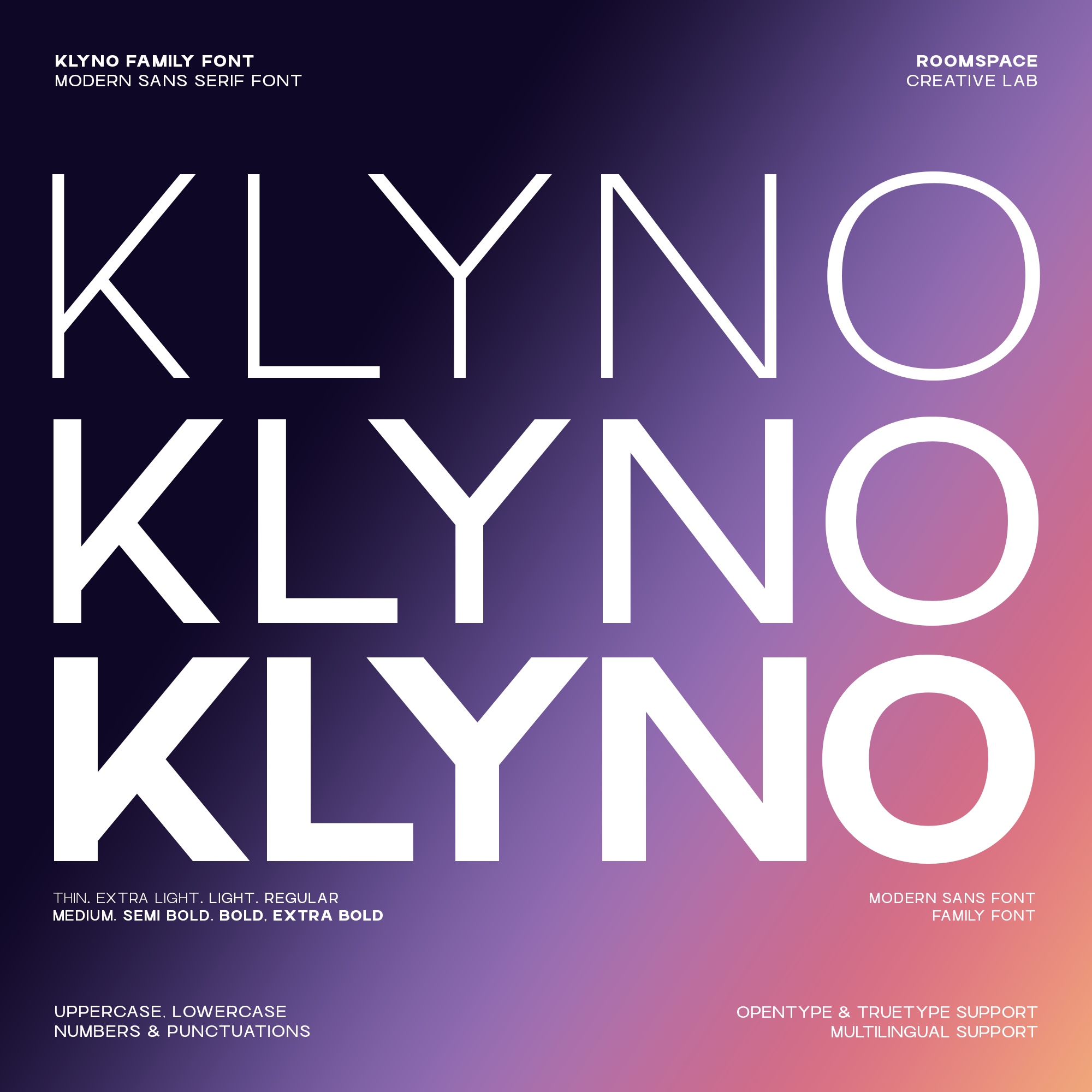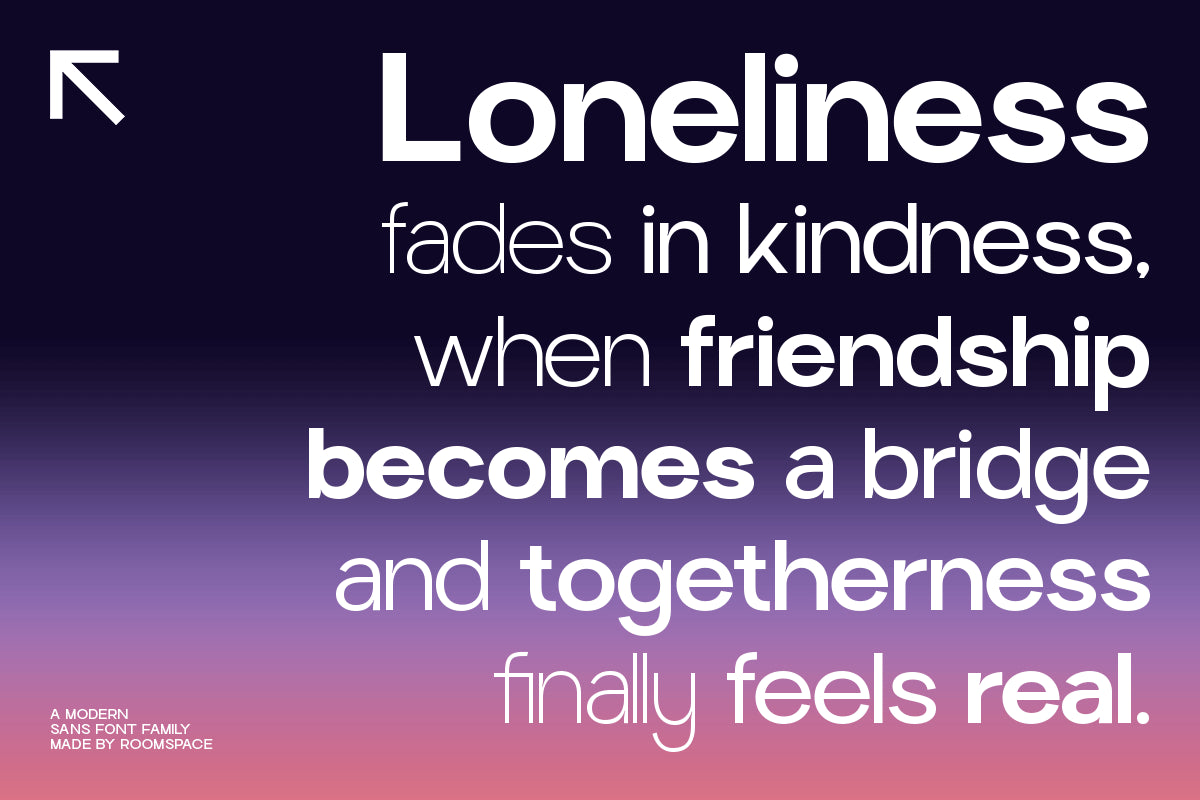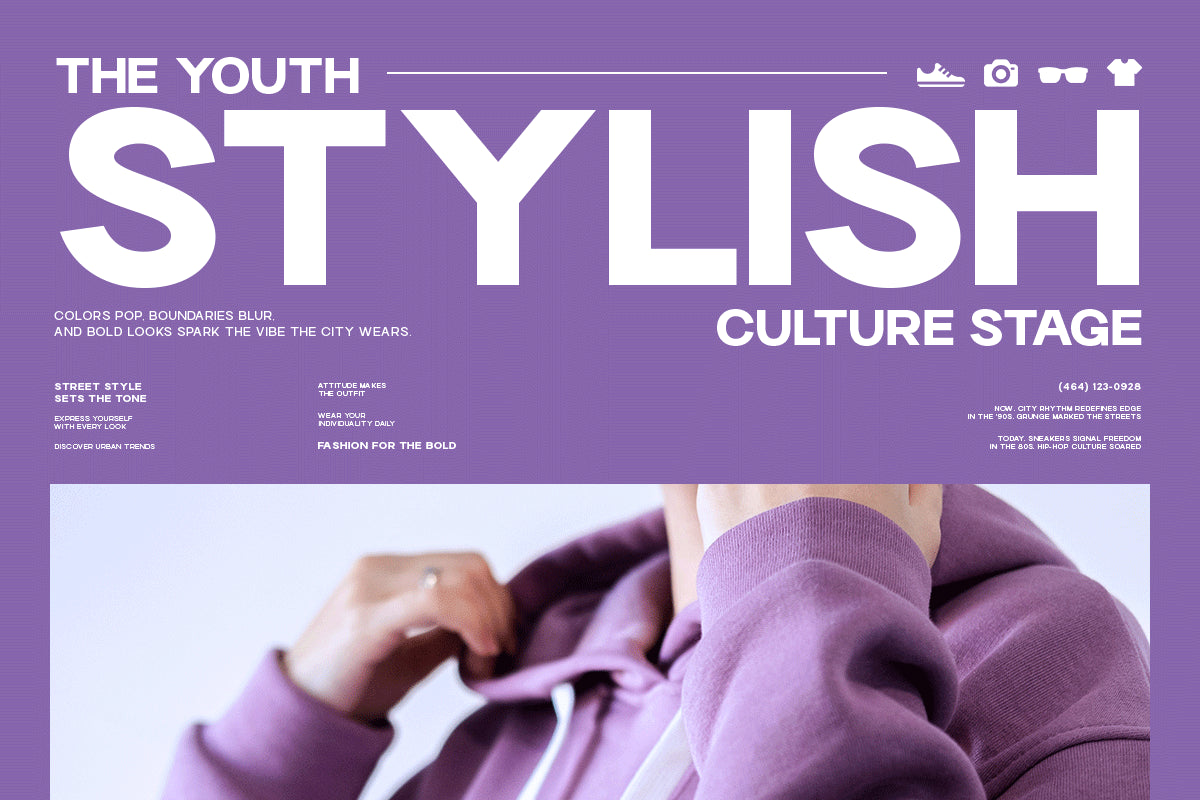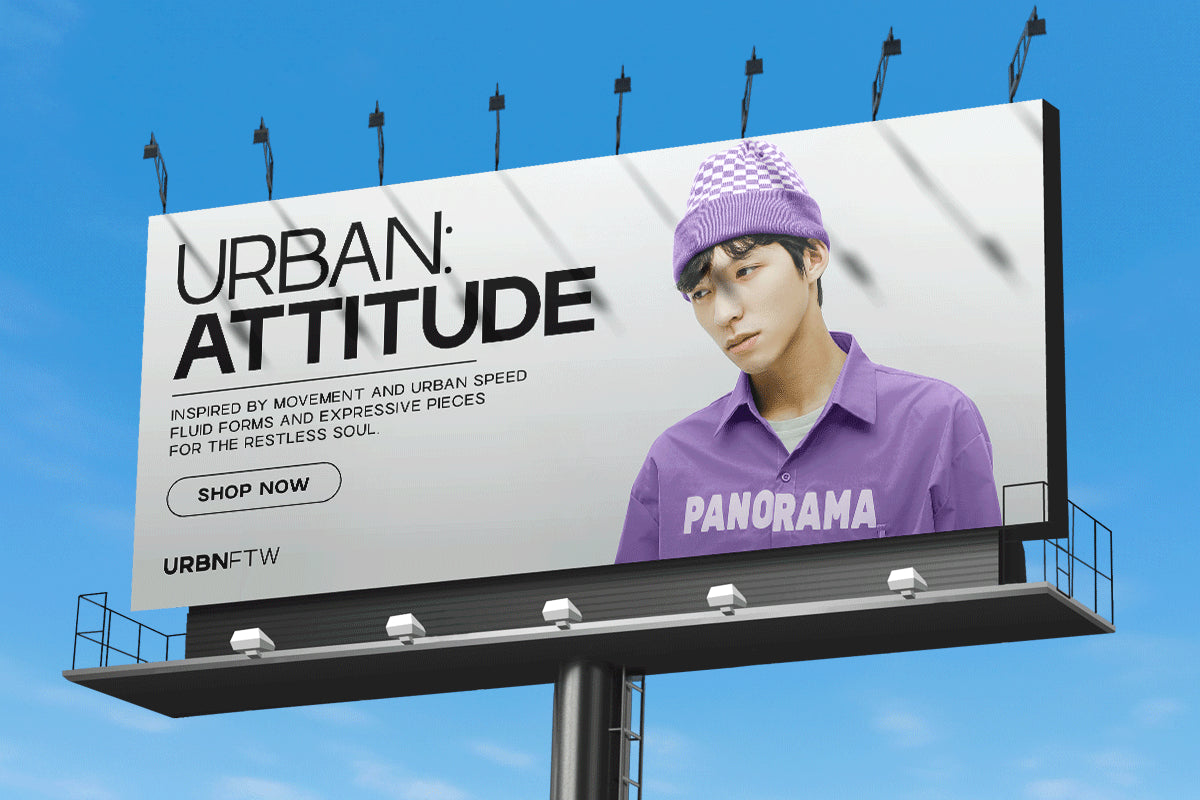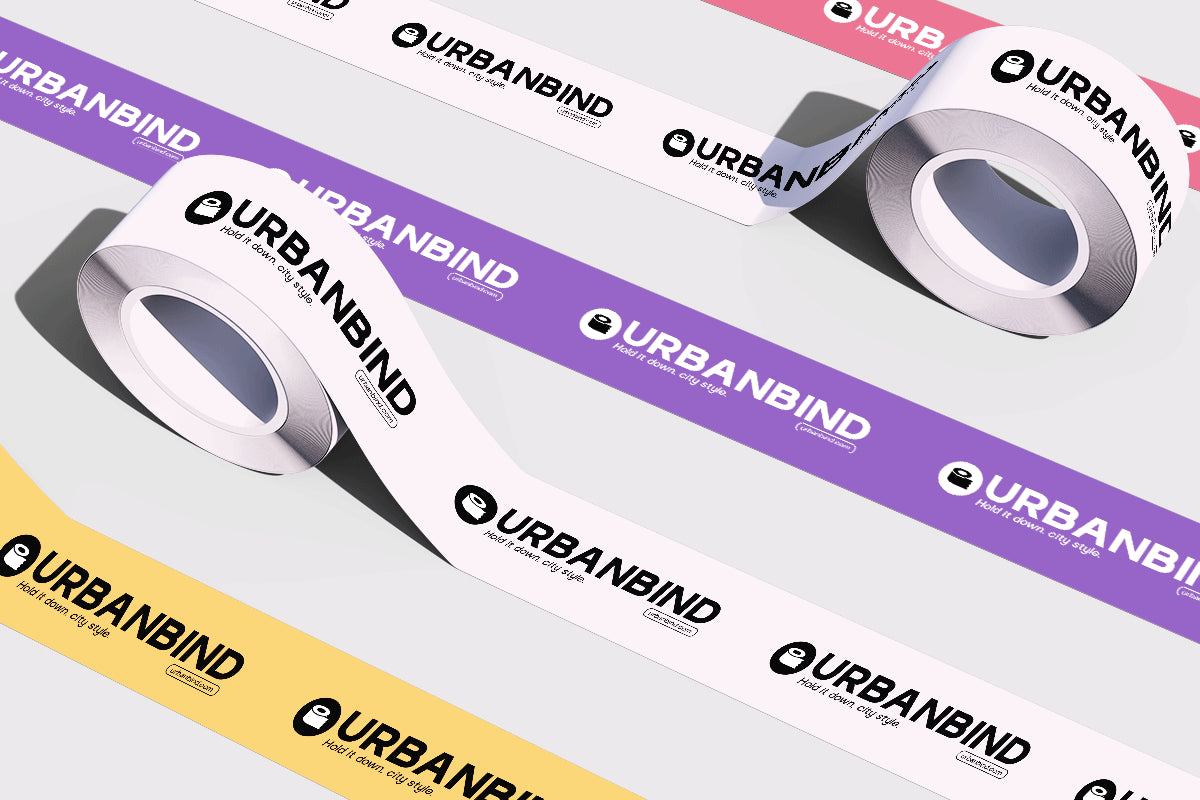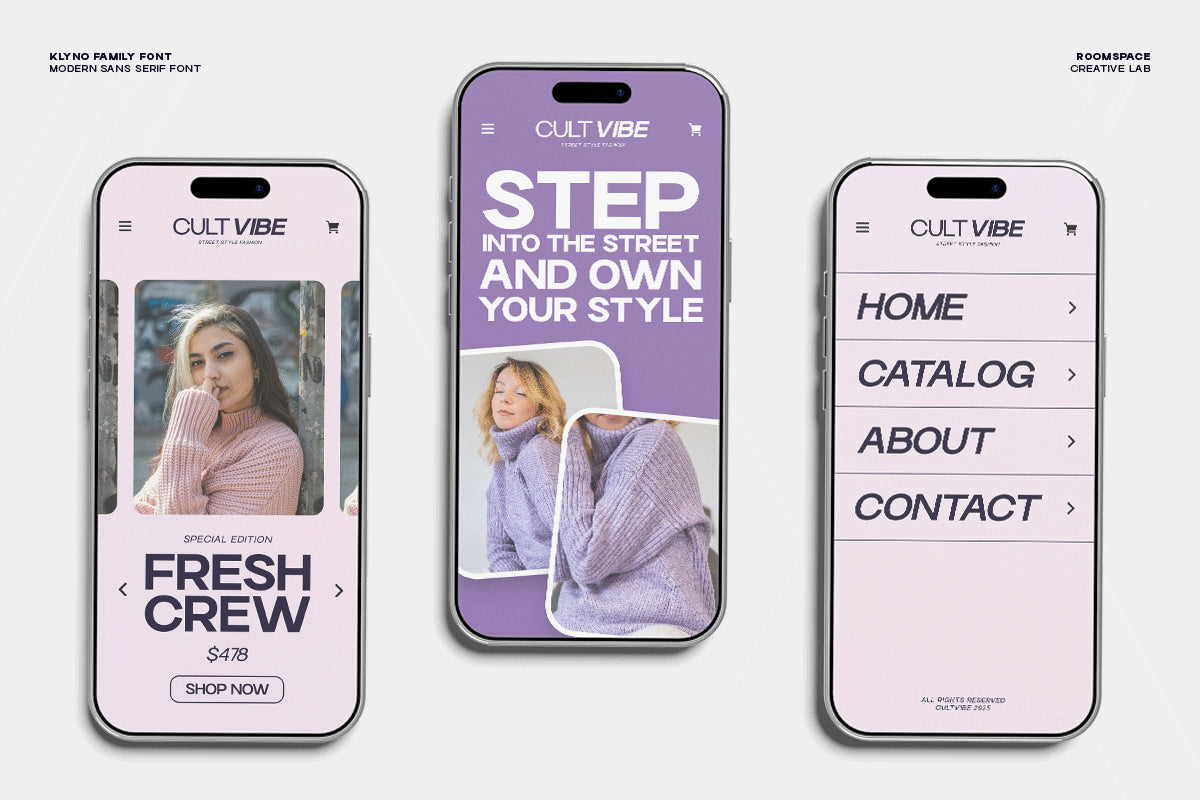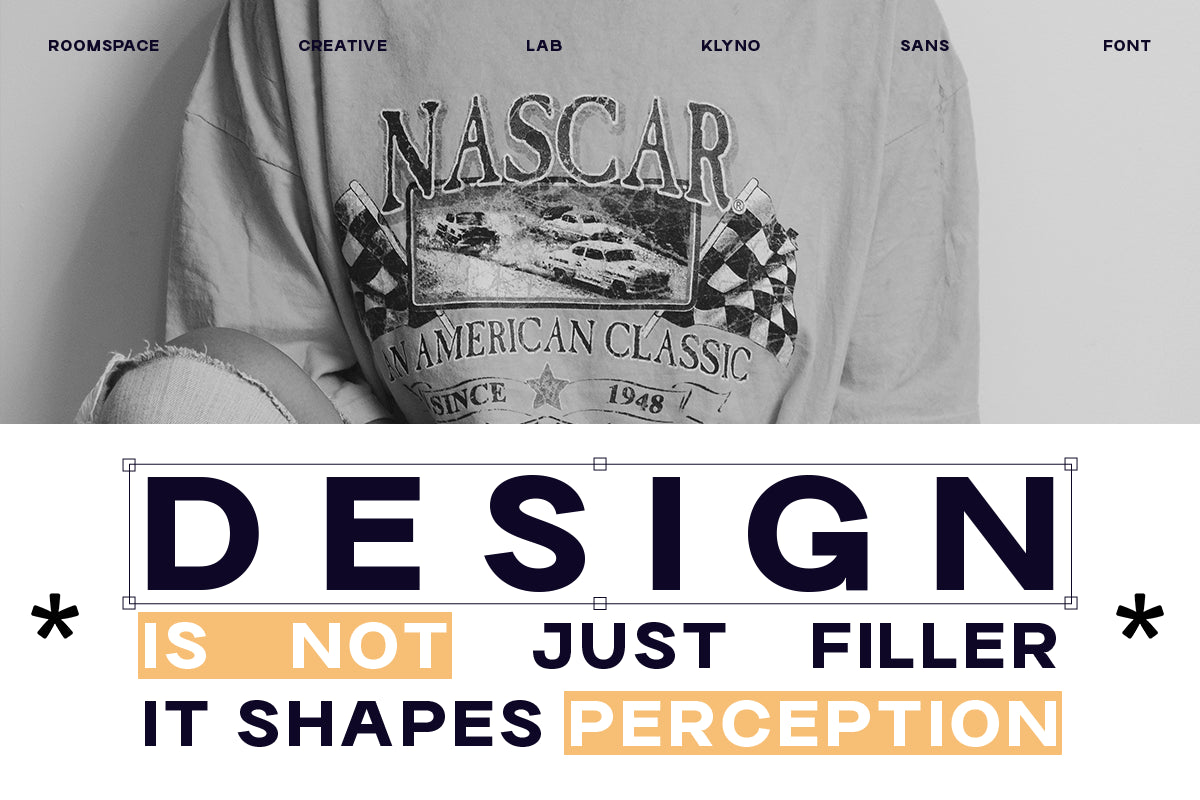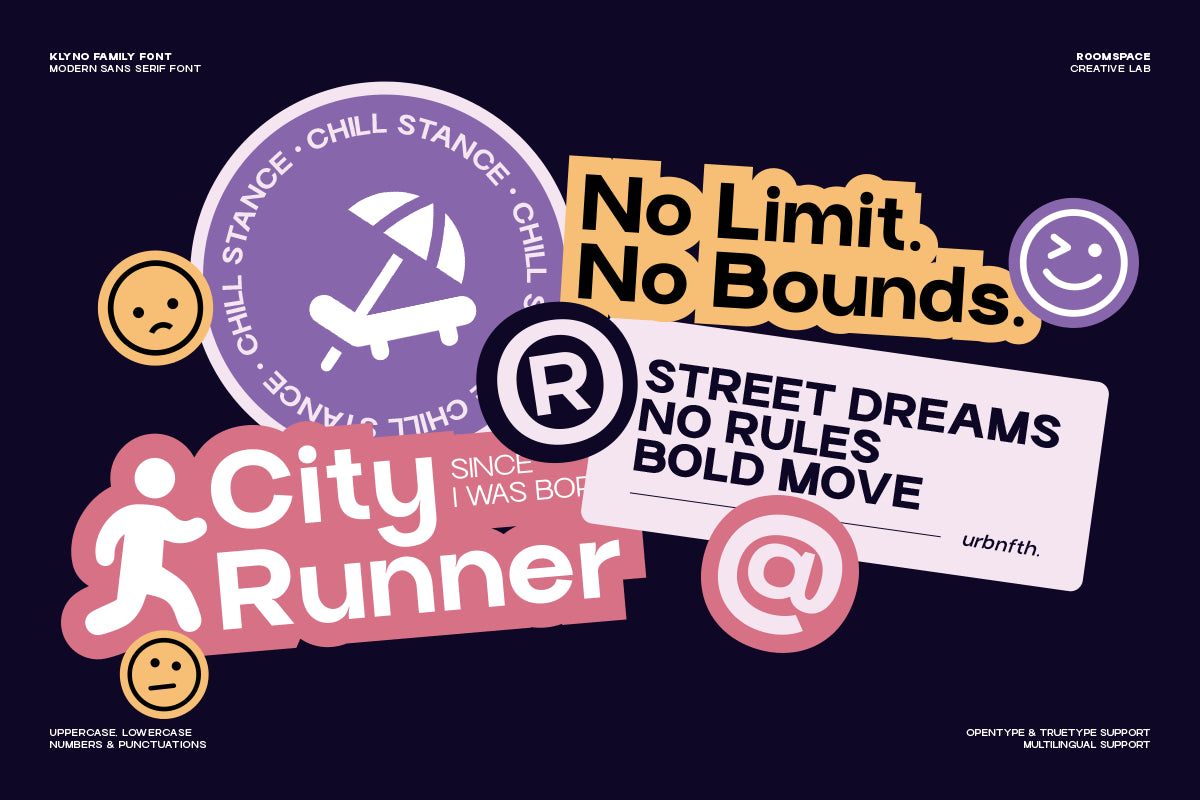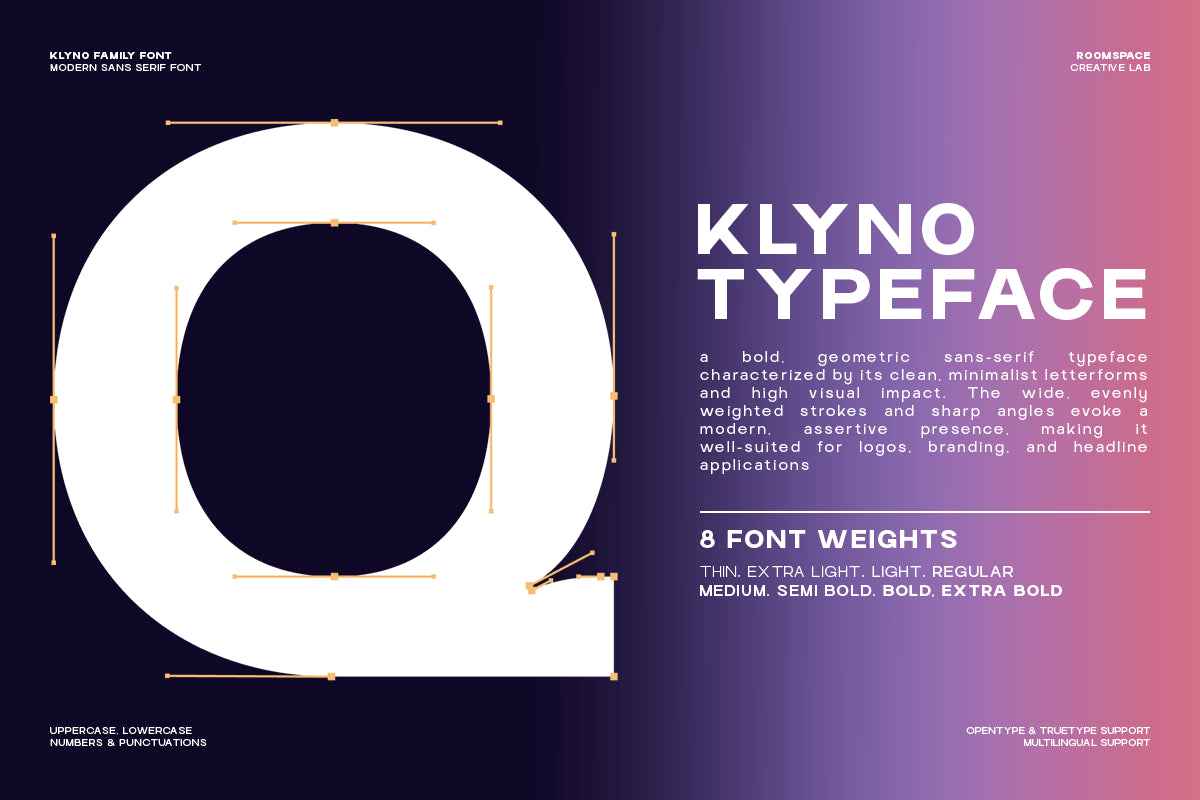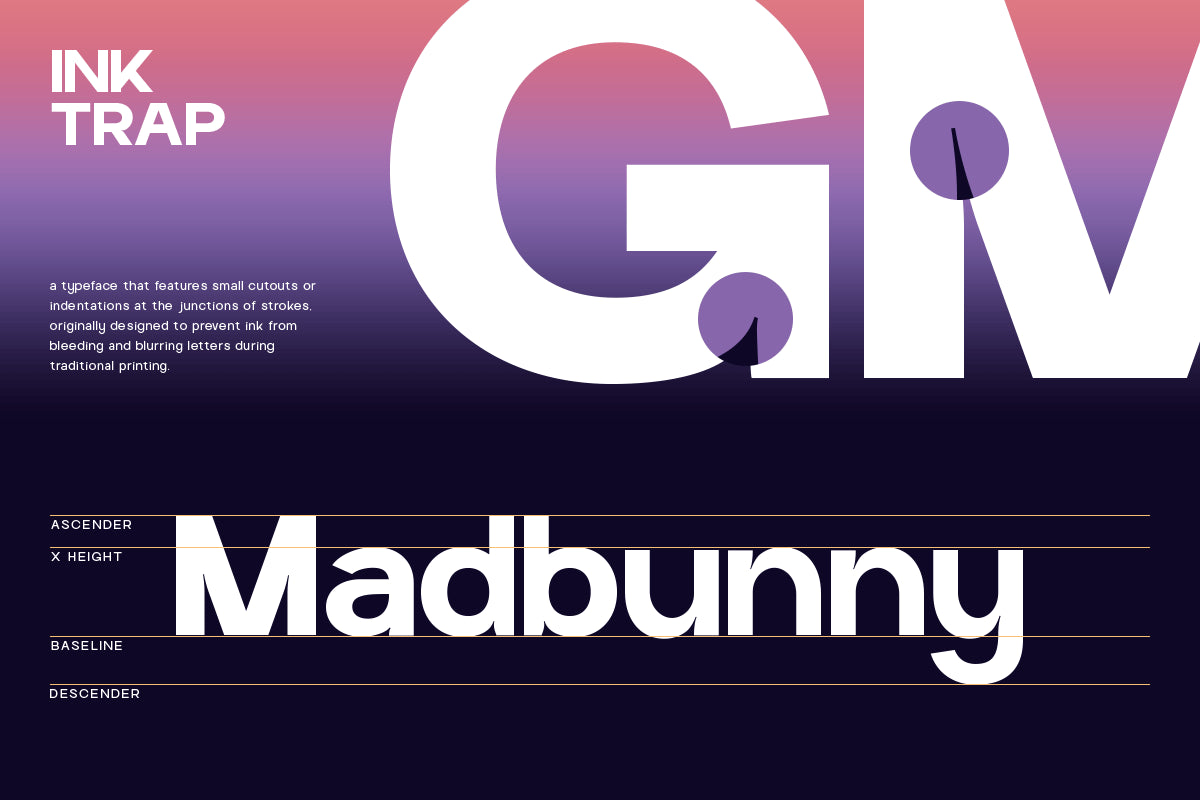
Klyno – A Modern Geometric Font Sans
Klyno is a bold, structured, and unmistakably modern sans-serif typeface designed for designers who value clarity with attitude. Built on strong geometric foundations, Klyno delivers a sharp typographic presence that feels confident, controlled, and future-forward. With its clean construction and precise proportions, Klyno balances visual strength and readability with ease. Every letterform is carefully engineered to feel intentional and refined, creating a rhythm that works beautifully in both large display settings and structured layouts. There is no unnecessary decoration only clarity, precision, and impact. Klyno’s visual language sits at the intersection of editorial and technology. It feels equally at home in modern magazines, digital platforms, branding systems, and forward-thinking interfaces. Whether used for headlines, logos, posters, campaigns, or digital layouts, Klyno brings a confident voice that cuts through without relying on excess.
8 Font Family (Thin–Extra Bold and Include Italic)
Modern geometric structure
Uppercase & lowercase
Multilingual support
Precise kerning
Klyno is a modern geometric sans-serif typeface featuring a bold and structured design, available in an 8-font family ranging from Thin to Extra Bold, including Italic options. It offers uppercase and lowercase letters, multilingual support, precise kerning, and is provided in OTF, TTF, and WOFF formats.